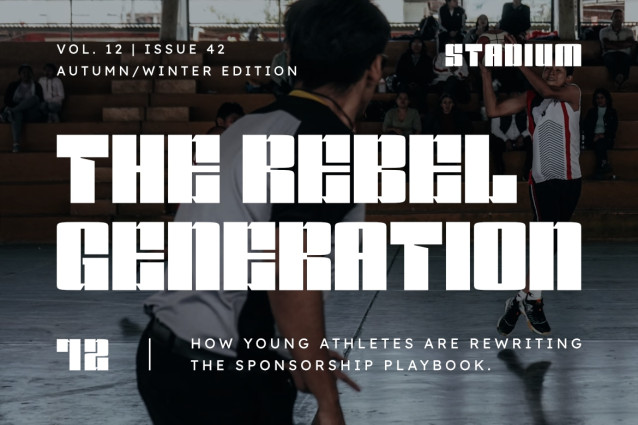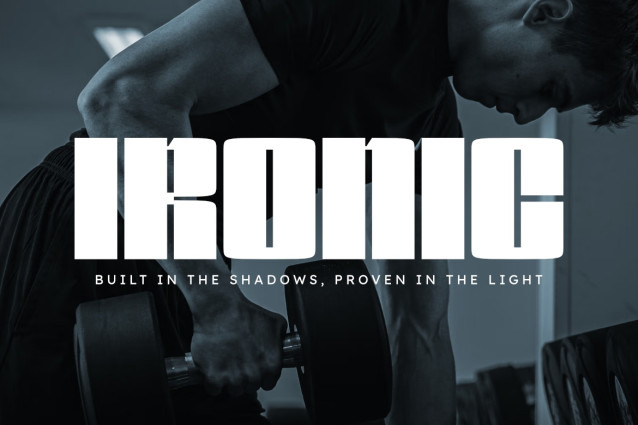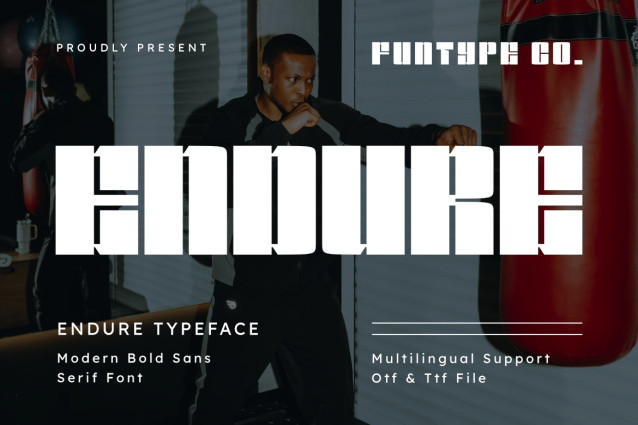
Endure is a heavy, high-impact, and modern bold sans serif font, engineered to bring a powerful athletic presence, solid geometric strength, and dynamic block display aesthetic to contemporary design layouts. Featuring extra-thick vertical stems, heavy block letterforms, and precise internal notch cutouts, Endure introduces a high-octane sports broadcast identity, combat sports promotion, heavy-duty editorial publishing, and prominent digital media presentation designed to claim absolute visual focus.
This font family is the ultimate choice for creative directors, athletic event organizers, and publication publishers looking to implement a robust typography identity for major text hierarchies. Whether you are developing bold corporate enterprise logotypes, championship boxing/MMA posters, energetic beverage packaging labels, cinematic action movie title sequences, outdoor campaign headers, or prominent digital web banners, Endure stands out with supreme legibility and commanding structural confidence.